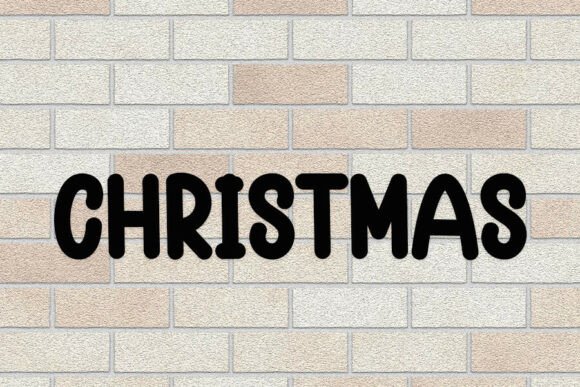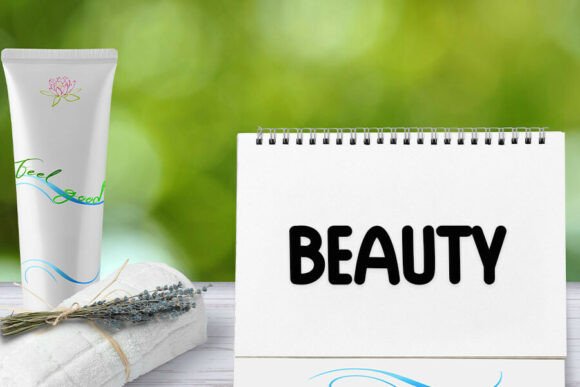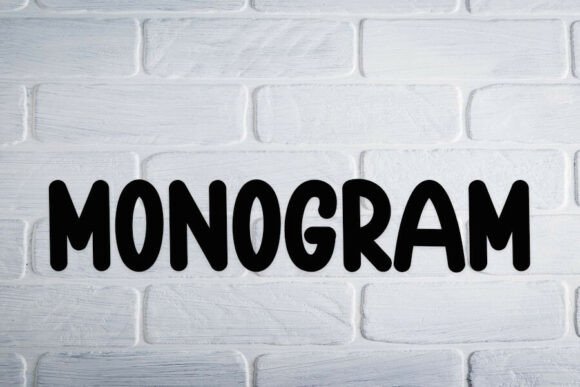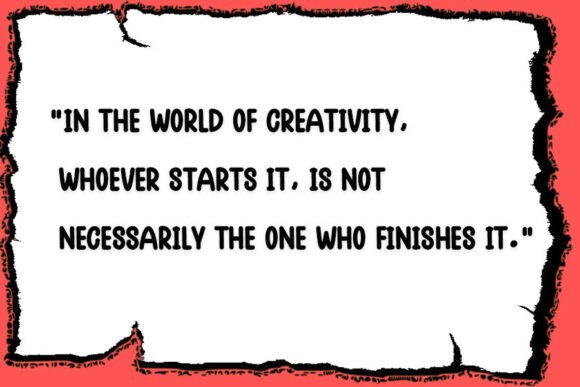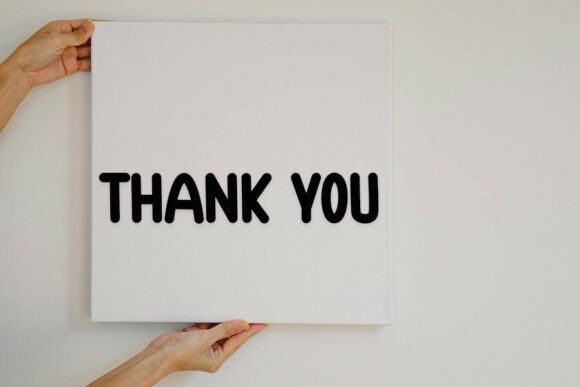
Introducing Healing Font: A Modern Calligraphy Display Font for Wellness and Comfort
In the world of typography, fonts play a crucial role in conveying the tone and personality of a brand. For designers and crafters, finding the right font can make all the difference in creating a visually appealing and effective design. If you’re looking for a font that exudes warmth, approachability, and a sense of comfort, look no further than Healing Font. In this article, we’ll explore the unique features of Healing Font and how it can elevate your designs in the wellness, retail, and casual title spaces.
A Bold, Rounded, and Highly Legible Display Font
Healing Font is a bold, rounded, and highly legible display font that combines modern calligraphy principles with a strong, clean aesthetic. Its thick, smooth strokes and simple, uniform shapes give it a very warm and approachable character. This font is perfect for designers and crafters who want to create a friendly and grounded look in their designs. Whether you’re working on a wellness brand, comfortable retail packaging, or casual titles, Healing Font is an excellent choice.
Key Features of Healing Font
So, what makes Healing Font stand out from other display fonts? Here are some of its key features:
- Bold and Rounded: Healing Font has a bold and rounded design that makes it highly legible, even at large sizes.
- Modern Calligraphy Principles: This font combines modern calligraphy principles with a strong, clean aesthetic, giving it a unique and sophisticated look.
- Thick, Smooth Strokes: The thick, smooth strokes of Healing Font give it a warm and approachable character that’s perfect for creating a sense of comfort and wellness.
- Simple, Uniform Shapes: The simple, uniform shapes of Healing Font make it easy to read and understand, even for audiences with limited literacy.
Use Cases for Healing Font
Healing Font is an incredibly versatile font that can be used in a variety of design contexts. Here are some use cases where Healing Font excels:
- Wellness Branding: Healing Font is perfect for wellness brands that want to convey a sense of comfort, relaxation, and approachability.
- Comfortable Retail Packaging: This font is ideal for retail packaging that wants to create a friendly and inviting look.
- Casual Titles: Healing Font is great for casual titles, headings, and subheadings that need to make a strong impression.
- Designs that Require a Clear, Friendly, and Grounded Style: Any design that requires a clear, friendly, and grounded style can benefit from Healing Font.
Why Choose Healing Font?
With so many fonts available, why should you choose Healing Font? Here are some reasons why Healing Font stands out:
- Unique and Sophisticated Look: Healing Font has a unique and sophisticated look that sets it apart from other display fonts.
- Highly Legible: This font is highly legible, even at large sizes, making it perfect for titles, headings, and subheadings.
- Warm and Approachable Character: Healing Font has a warm and approachable character that creates a sense of comfort and wellness.
- Versatile: This font is incredibly versatile and can be used in a variety of design contexts.
In conclusion, Healing Font is a modern calligraphy display font that’s perfect for designers and crafters who want to create a friendly and grounded look in their designs. With its bold, rounded, and highly legible design, Healing Font is ideal for wellness branding, comfortable retail packaging, casual titles, and any design that requires a clear, friendly, and grounded style. Whether you’re working on a digital project or a print project, Healing Font is an excellent choice.